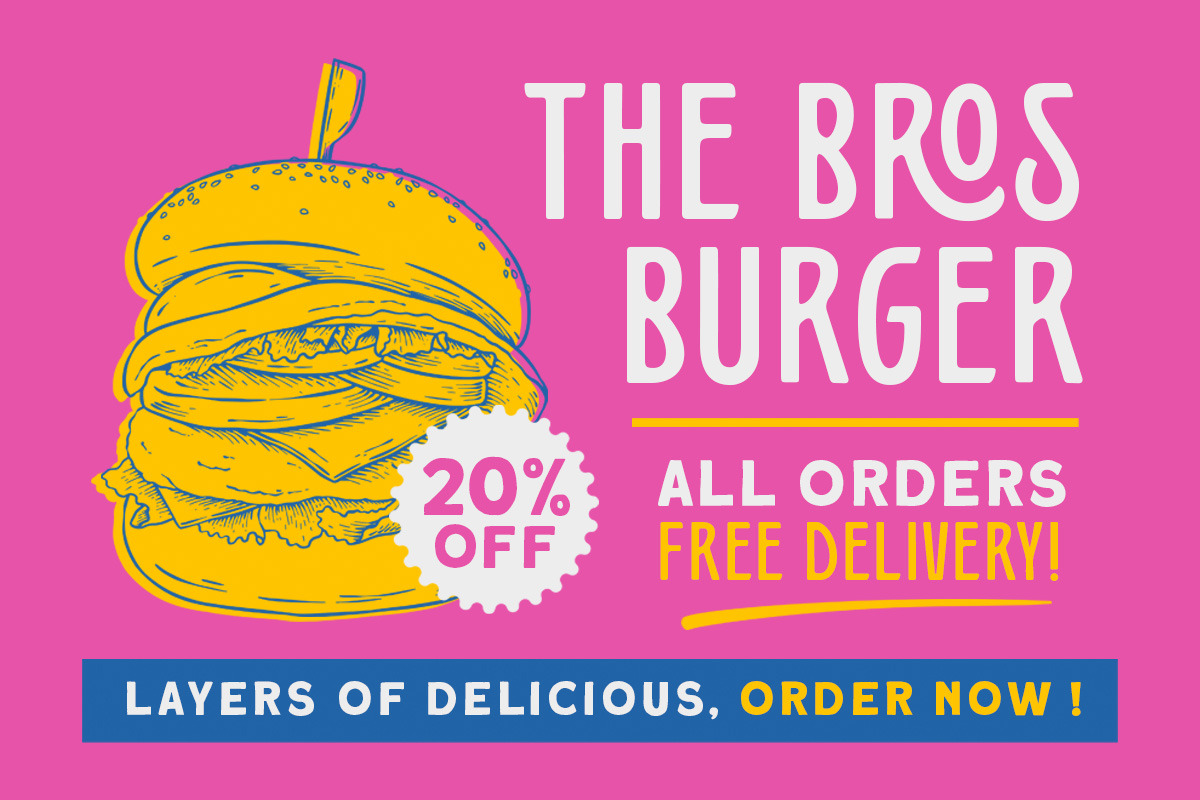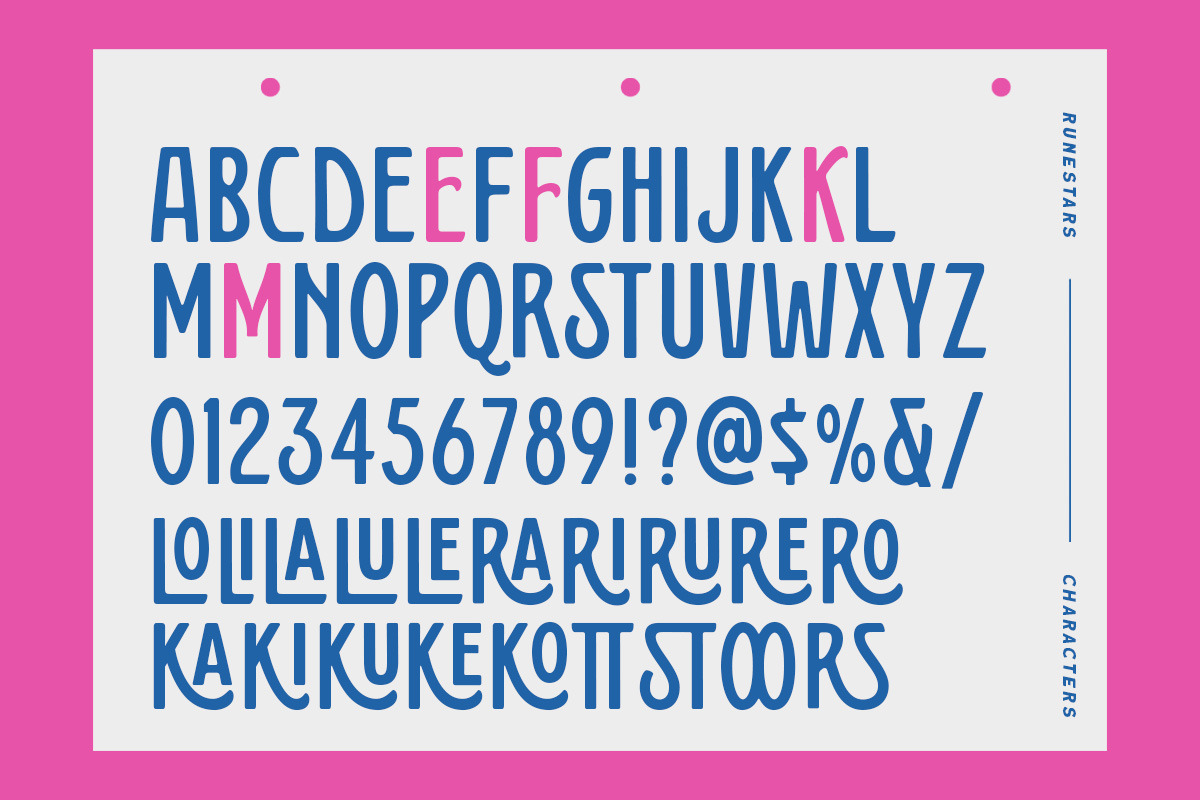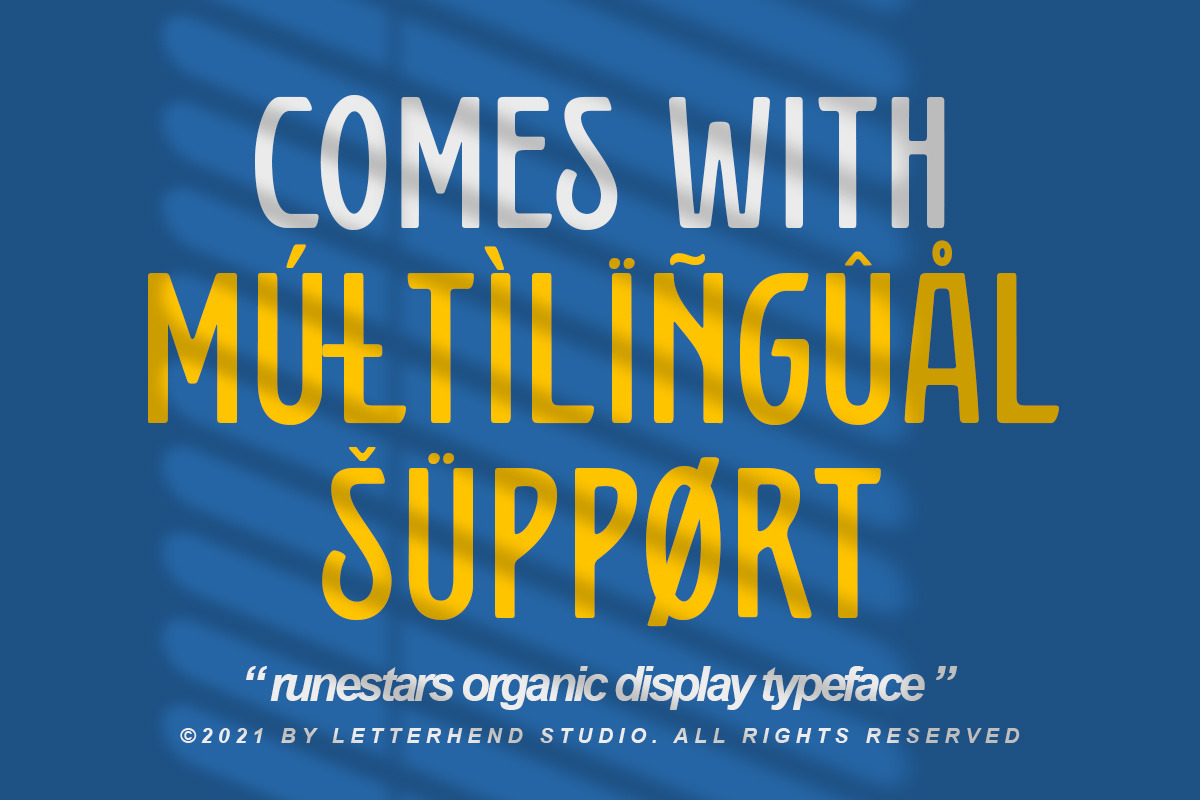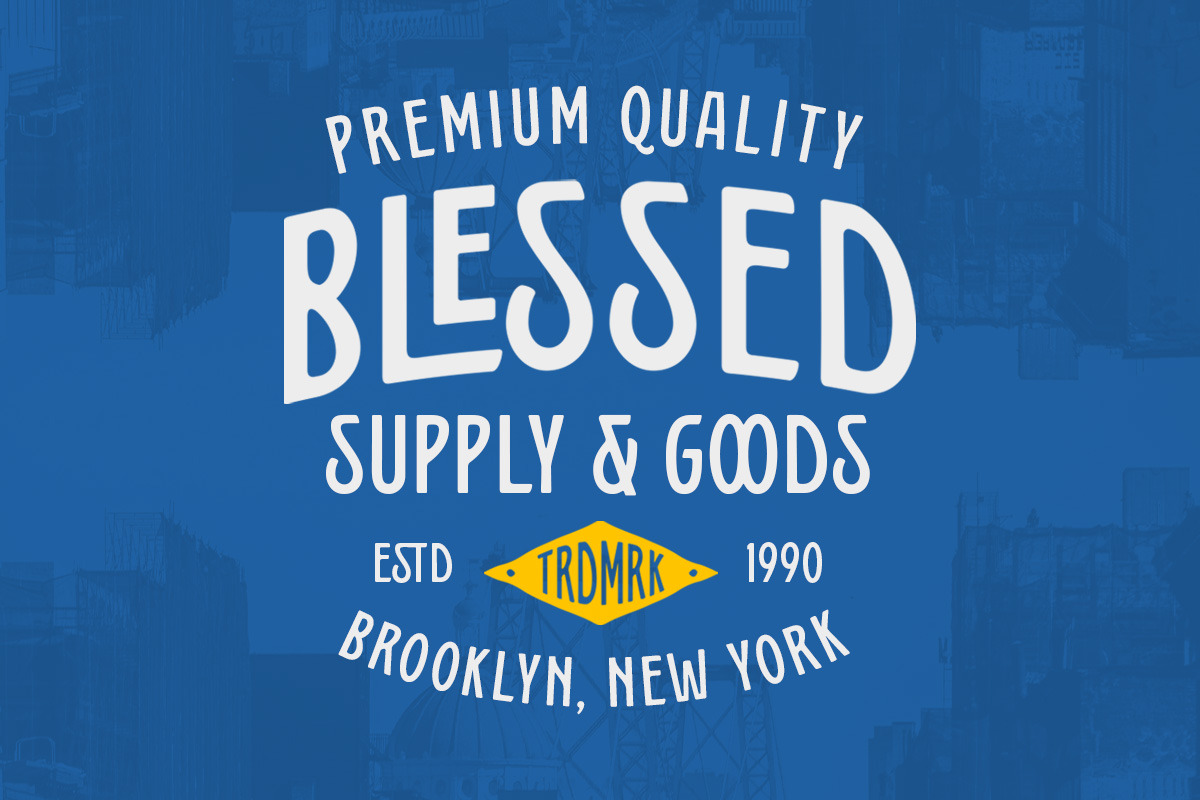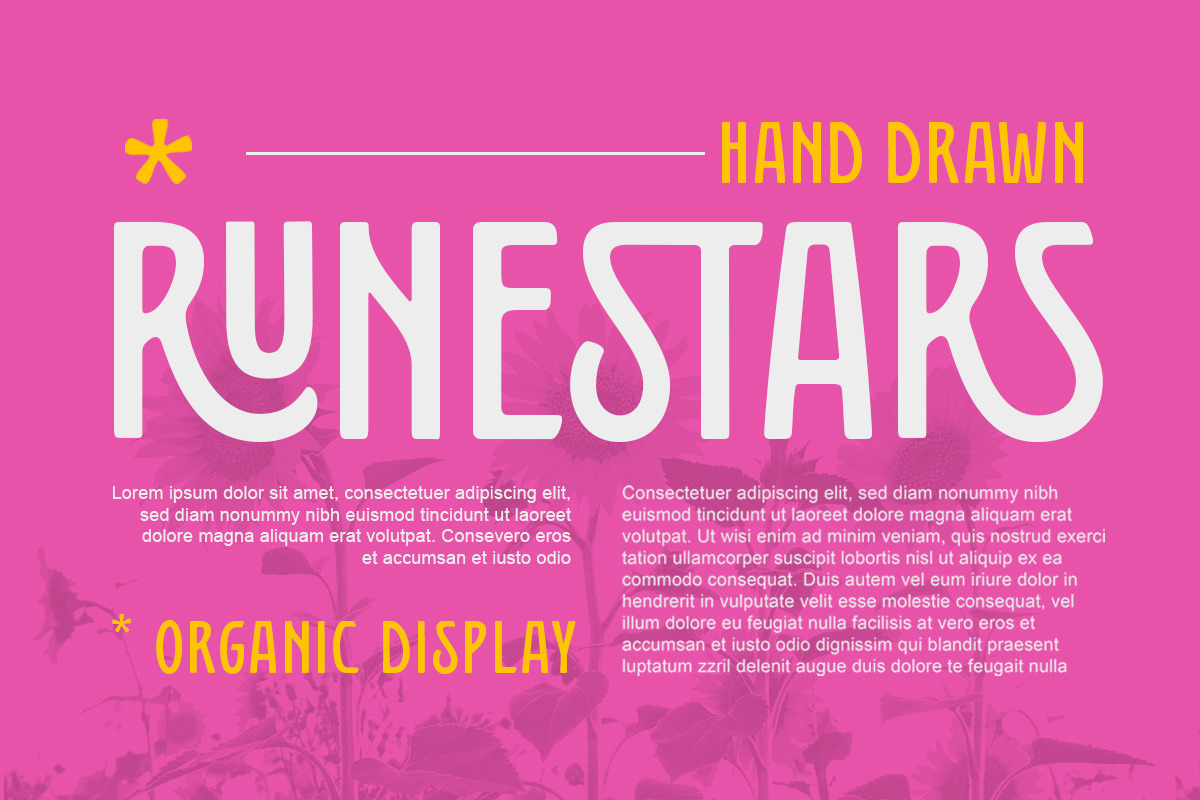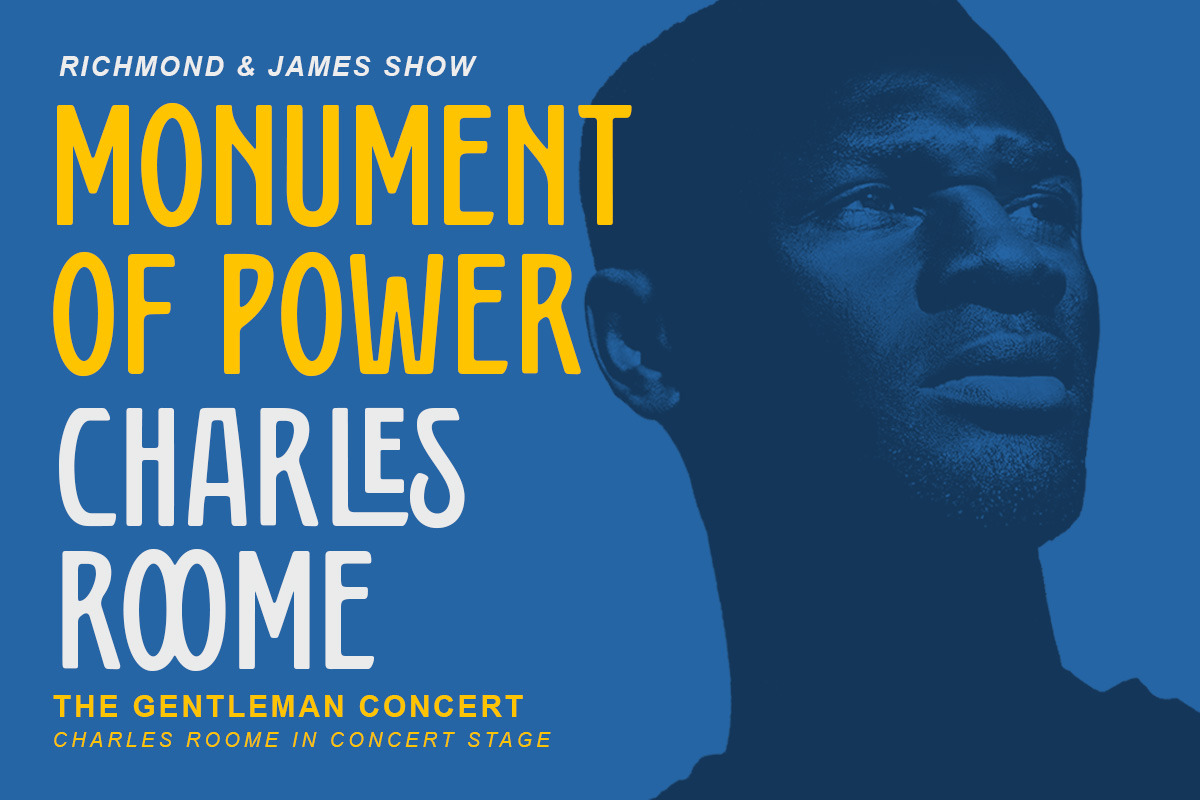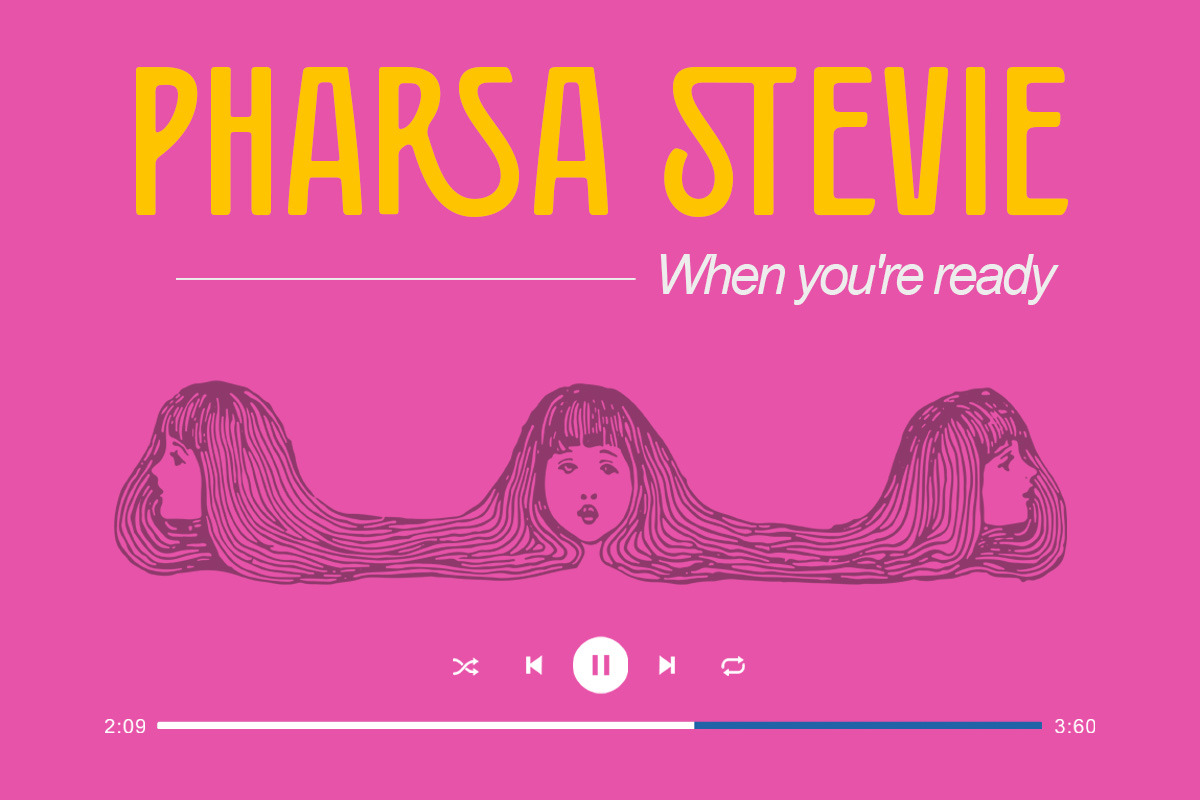
Runestars - Organic Display
About the Product RuneStars is a organic display typeface with unique ligatures. This typeface has unique looks and strong character with natural looks because it was made by manual hand lettering. This font perfectly made to be applied especially in logo, and the other various formal forms such as invitations, labels, magazines, books, greeting / wedding cards, packaging, fashion, make up, stationery, novels, labels or any type of advertising purpose.
- Stylistic alternates